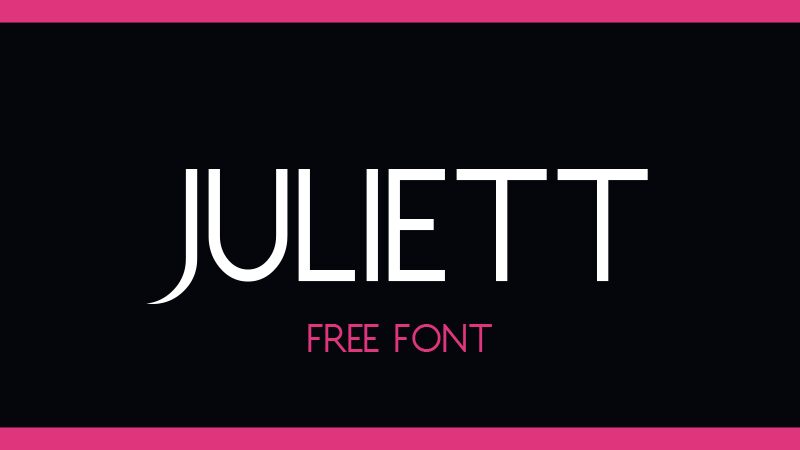
Juliett Italic
Juliett italic font was designed by GGBotNet and is a chic, lightweight sans serif typeface. This typeface being minimal features moderate contrast with a finely modern look. It does however, look sober,stylish and professional with a slight touch of minimalism. Its plain and flowing design approach makes it applicable in many areas.
Juliett Italic is suitable for high level text documents, recent corporate identity developments, clean compositions, it sites, contemporary presentations, active advertising billboards, modern magazines designing, stylish and simple invites and their inner pagers and clear pages of interface.